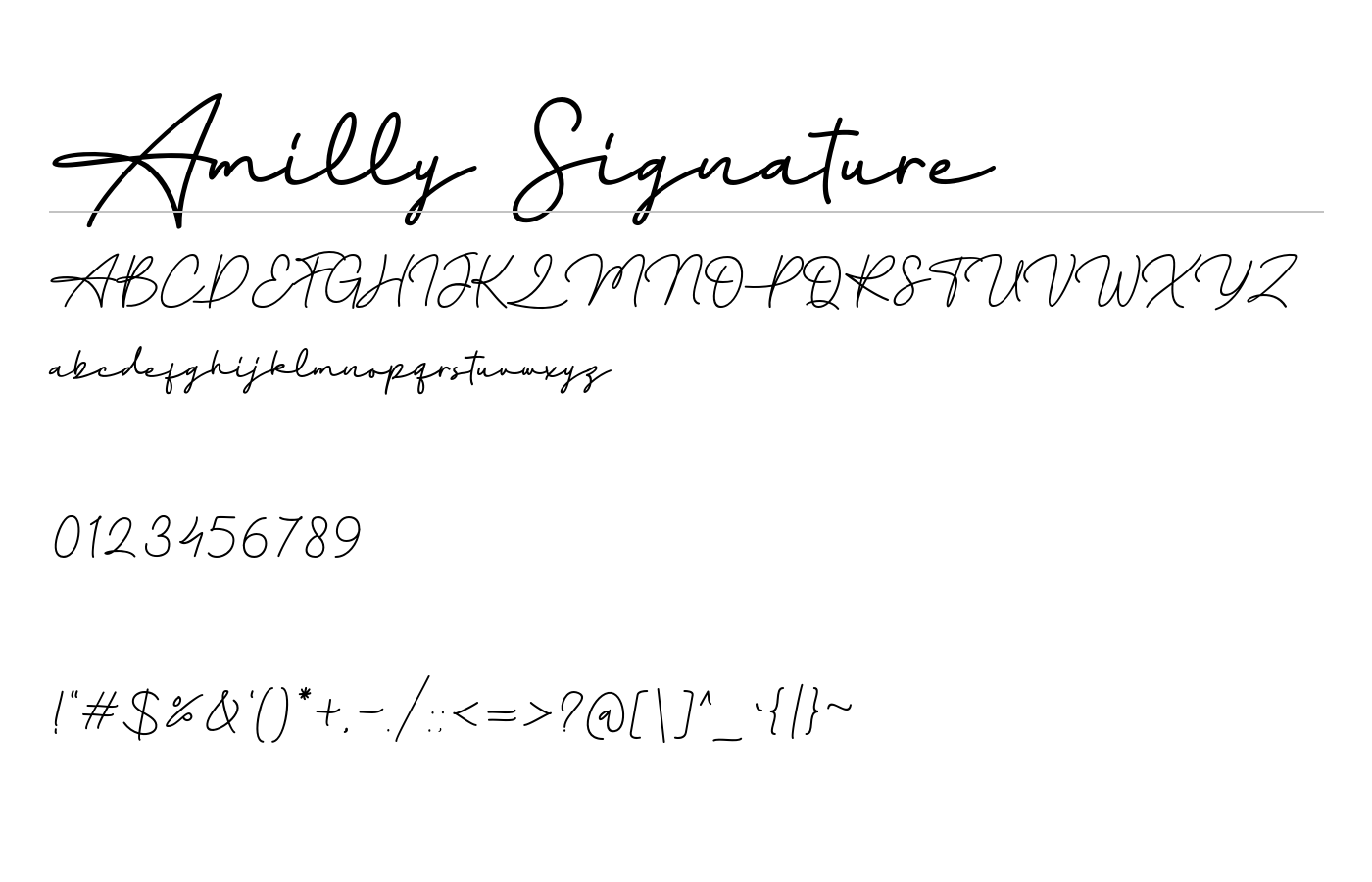
Amilly Signature Font is a delicate and elegant handwritten script that captures the natural flow of a personal signature with its thin, smooth lines and playful yet refined letterforms. Its light weight and tall, slender characters give it a modern, airy feel perfect for branding, invitations, and sophisticated editorial design where a personal, stylish touch is desired. This font works beautifully in logos and headlines to convey authenticity and charm while maintaining readability.
Amilly Signature Font
About Amilly Signature Font
| Font family | Amilly Signature Font |